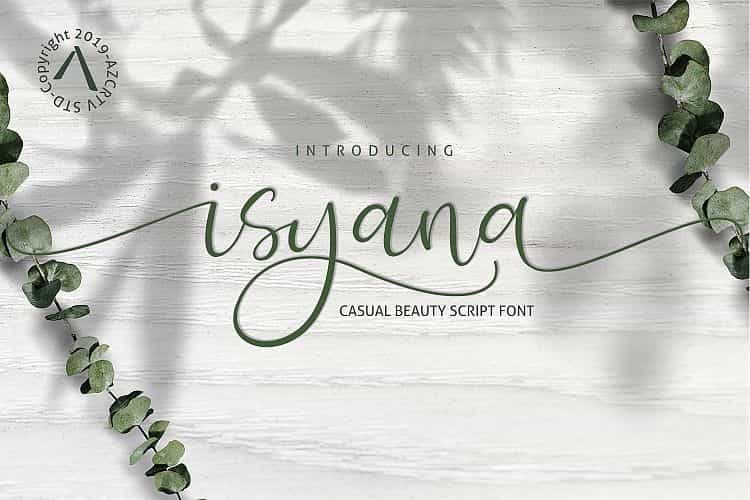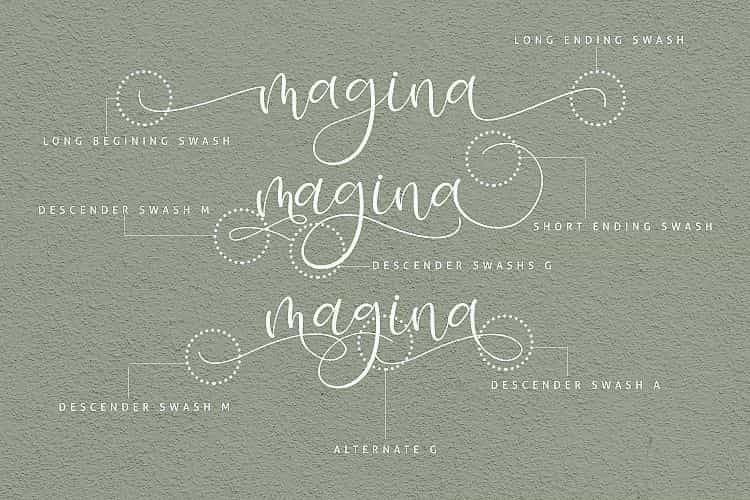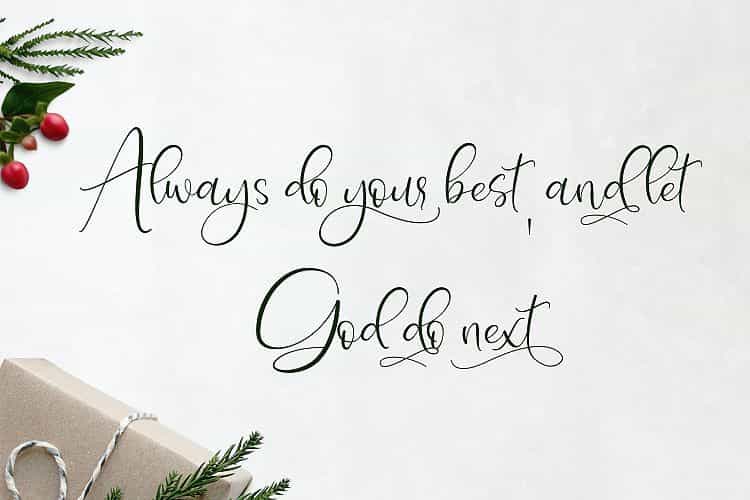
Introducing Isyana Font! It is the casual beauty script style letters with beautiful and flexible strokes that make the fonts naturally girly. This letter can be used for poster design and many other projects, weddings invitations, congratulations, flyers, beautiful logos and much more.